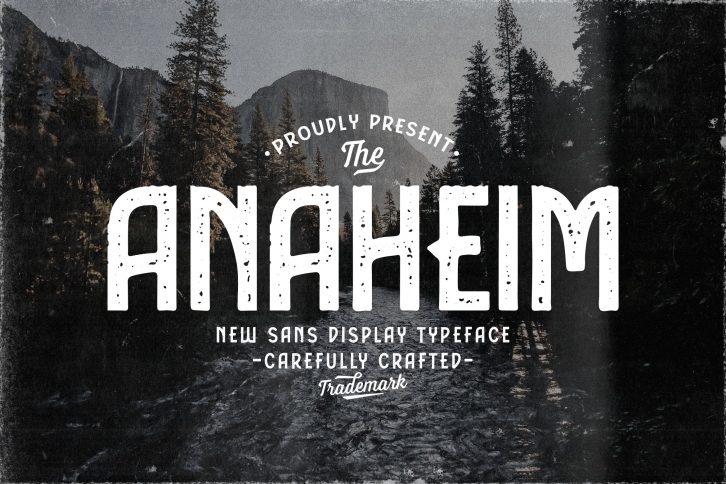
Anaheim Sans Display Typeface is a beautiful font that was designed by typotopia. It's a great choice for designers and creatives who need such a font. It was released on May 5, 2021 and the file size is 5.58 MB. Anaheim Sans Display Typeface may give a more youthful, expressive and casual look to your project. It is a very beautiful, refined, elegant, and high-quality font.